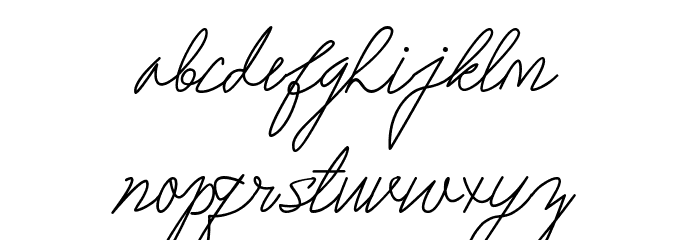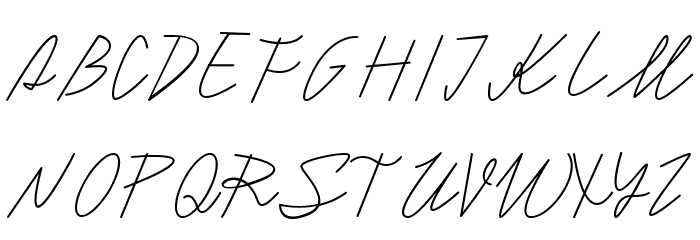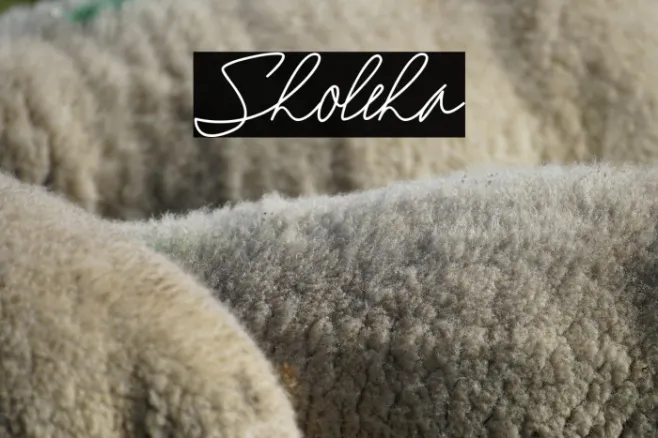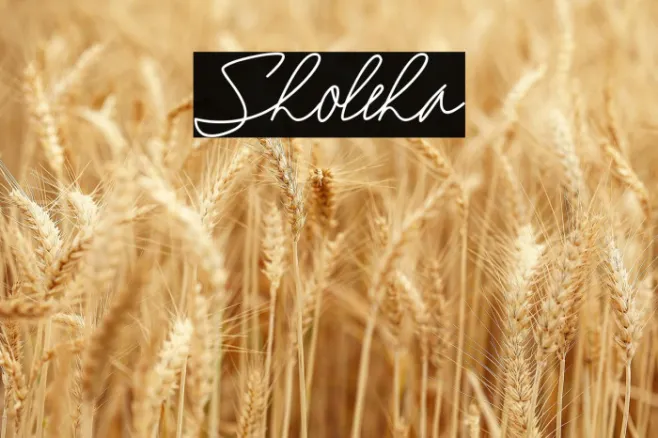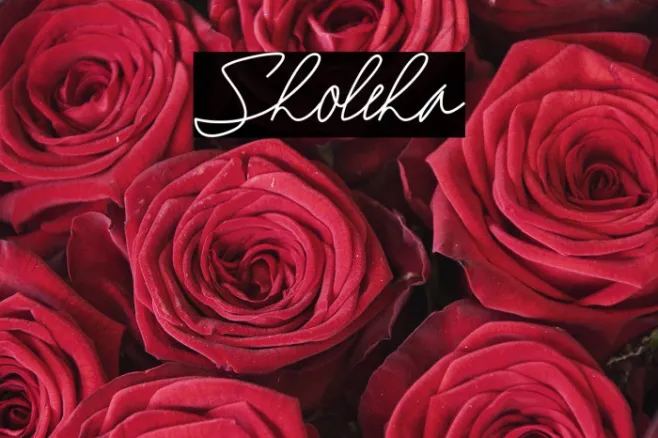
Sholeha Font
This font exudes a classic handwritten style with elegant, flowing lines that mimic cursive handwriting. The characters are connected in a fluid manner, giving it a natural and personal touch. The uppercase letters maintain a consistent height, while the lowercase letters vary slightly in size, adding to the organic feel. The strokes are thin and delicate, enhancing the font's graceful appearance. It features a slight slant to the right, typical of cursive scripts, which adds to its dynamic and lively character. The font is versatile, suitable for projects that require a personal or elegant touch, such as invitations, greeting cards, or branding materials.
A classic, elegant handwritten script with flowing, connected characters.
- Proposed Projects: Ideal for wedding invitations, personal branding, greeting cards, and elegant stationery.
- Category: Script
- Overall Style: Classic
- Use Case: Invitations, Personal branding, Greeting cards